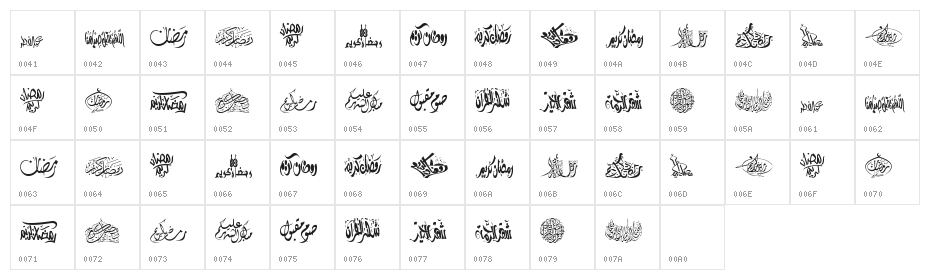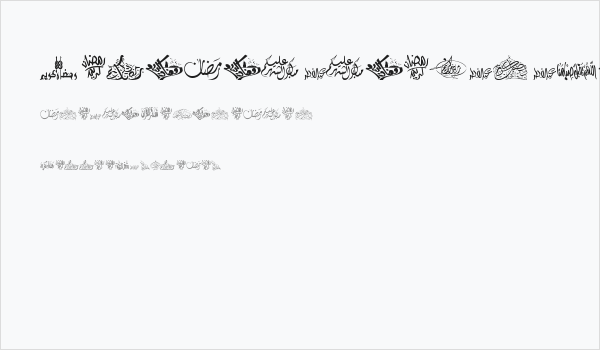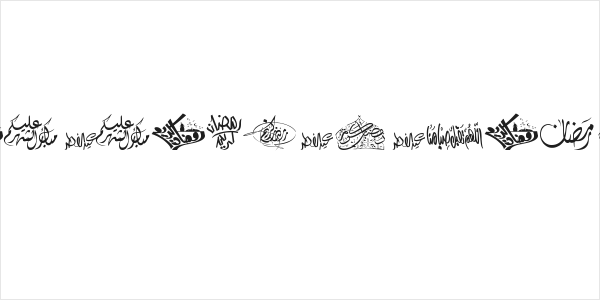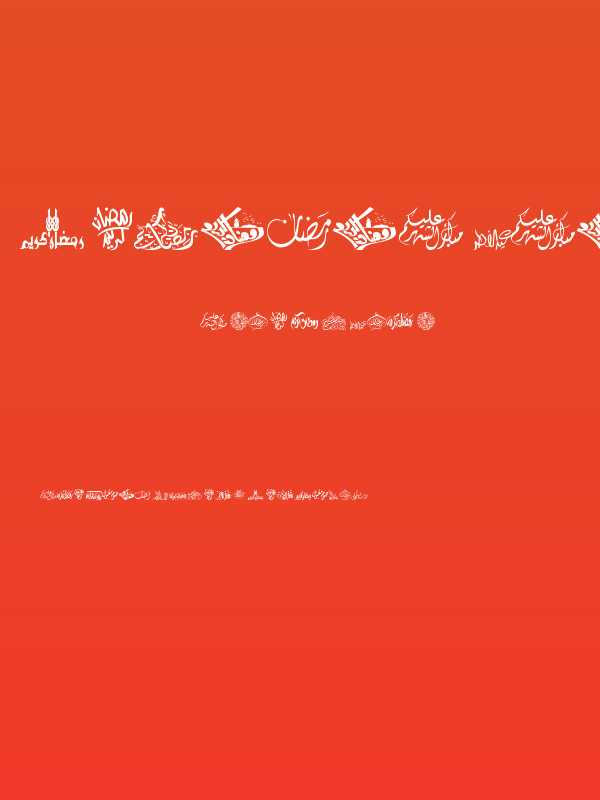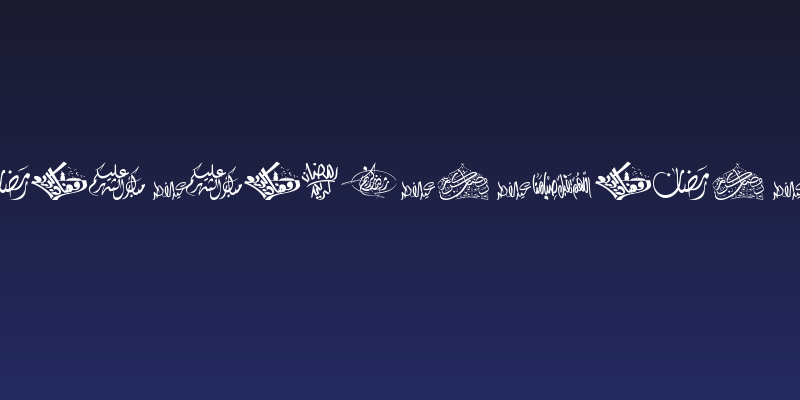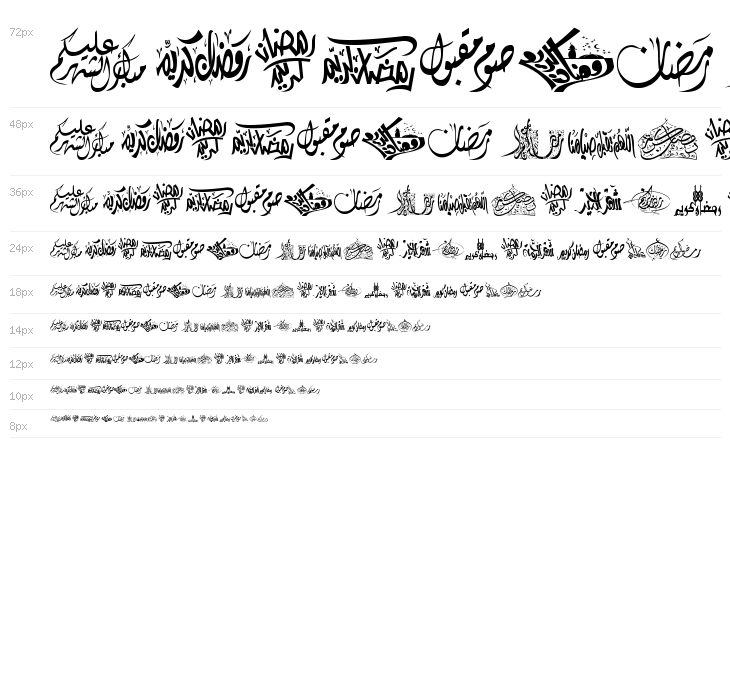
Felicitation Arabic_Ramadan Font
Felicitation Arabic_Ramadan Description
This font is a beautifully intricate Arabic script, characterized by its flowing, interconnected letters and ornate design elements. The script is highly decorative, with each character exhibiting unique flourishes and embellishments that enhance its visual appeal. The font is designed to convey a sense of elegance and tradition, making it ideal for cultural and religious contexts. The strokes vary in thickness, providing a dynamic contrast that adds depth and richness to the text. The overall style is both classic and artistic, capturing the essence of traditional Arabic calligraphy.
Sughayer Foundry - Amin Sughayer
Overall StyleClassic
Use CaseDecorative art, cultural events, religious texts
Proposed ProjectsIdeal for religious texts, cultural event invitations, decorative art pieces, and traditional branding.